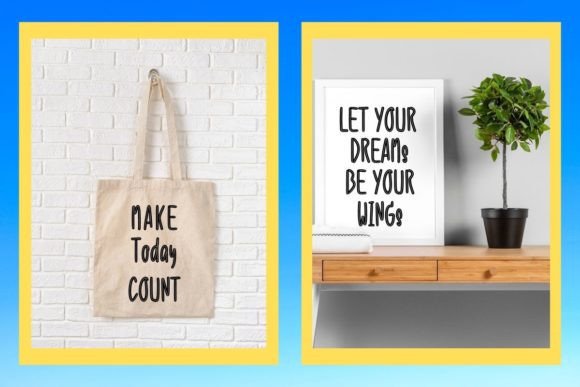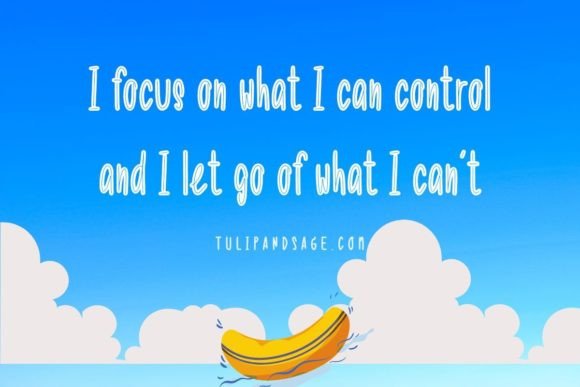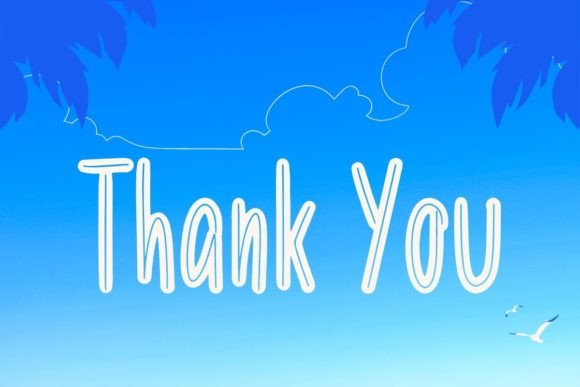
Who else has ever found themselves at a craft store, surrounded by an overwhelming array of colorful markers and fonts, wondering which one to choose for their next DIY project? We’ve all been there. The struggle to find the perfect font can be just as daunting as deciding on the perfect color palette.
Enter the Banana Boat Font, a tall and skinny display font that’s perfect for adding a casual, laid-back vibe to your next creative project. Whether you’re designing a custom mug, creating a fun t-shirt, or making a set of handmade cards, this font is sure to bring a smile to your face and a touch of personality to your design.
For designers, the Banana Boat Font is a valuable addition to any toolkit, offering a versatile and easy-to-use solution for a wide range of projects. Its informal style and casual vibe make it the perfect choice for creating eye-catching designs that are sure to stand out.
Banana Boat Font Key Features
- Font Size: Banana Boat Font comes in various font sizes, including Regular, Bold, Italic, and Bold Italic, allowing designers to choose the perfect style for their project.
- Resolution: Banana Boat Font is designed to be high-resolution, ensuring that it looks crisp and clear at any size, from small text to large headlines.
- Unique Characteristics: Banana Boat Font features a unique, playful design with rounded edges and a friendly feel, making it perfect for children’s books, educational materials, and other projects that require a fun and approachable tone.
- Font Weight: Banana Boat Font offers a range of font weights, from Light to Black, allowing designers to achieve the perfect level of contrast and visual interest in their designs.
Designer Review: Banana Boat Font
Overall, I think the Banana Boat Font is a solid choice for casual and playful designs ✨. The font’s quirky, hand-drawn feel immediately evokes a sense of fun and whimsy. The rounded edges and soft lines make it perfect for children’s books, food packaging, or any project that needs a lighthearted touch.
- The Banana Boat Font is highly legible, even at smaller font sizes ✨.
- The font’s unique style sets it apart from more generic, sans-serif fonts ✨.
- It’s available in a range of weights and styles, making it easy to customize for different design needs ✨.
However, there are some limitations to consider ⚠️:
- The Banana Boat Font may not be the best choice for formal or professional designs ⚠️.
- Some users may find the font’s quirky style too playful or distracting ⚠️.
- The font’s availability in certain languages or character sets may be limited ⚠️.
Overall, I think the Banana Boat Font is a great addition to any designer’s toolkit. While it may not be the best choice for every project, it’s perfect for designs that need a fun, lighthearted touch.
The Banana Boat font is commonly used for:
- Casual and fun designs
- Food and drink branding
- Summer and beach-themed designs
- Playful and whimsical illustrations
Here are some tips for getting the most out of the Banana Boat font:
- Use it in combination with bright and bold colors to create a playful and eye-catching design